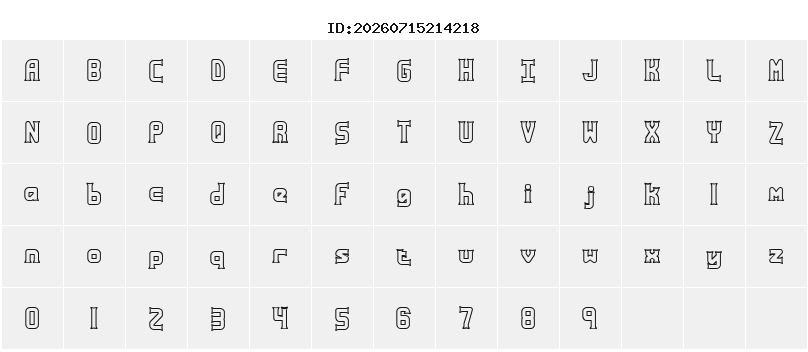
Ataxia Outline (BRK) Preview
About Ataxia Outline (BRK).ttf
Ataxia Outline (BRK).ttf is a modern, elegant sans-serif font designed for ultimate readability and visual harmony. Perfect for branding, headlines, web design, and print materials.